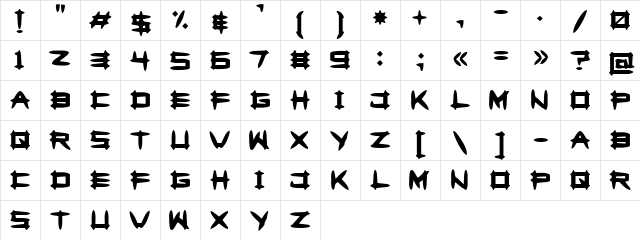
Greghor II Regular Font Preview
Greghor II Regular
Design Context for Greghor II Typeface
Greghor II is a composed and adaptable typeface that performs quietly and consistently across a wide range of design contexts.